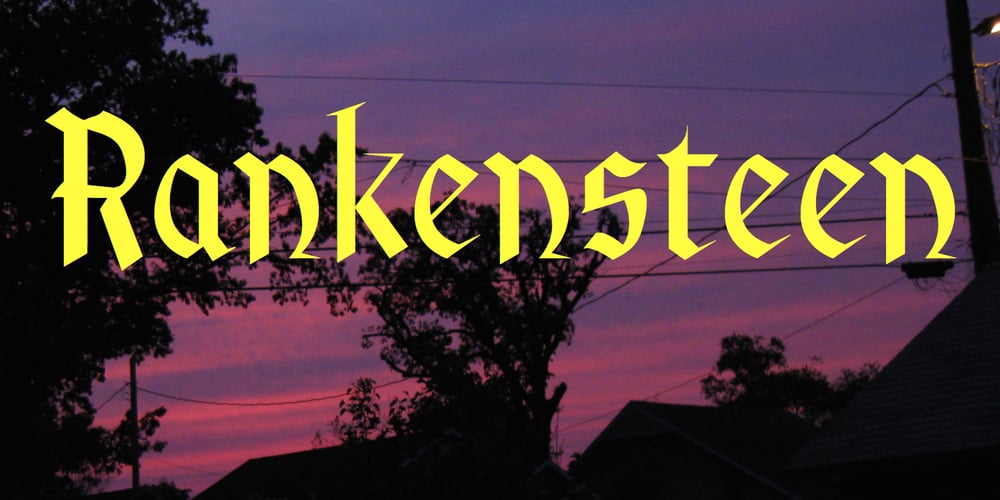
Rankensteen Font Family was designed by Robert Schenk and published by Ingrimayne Type. Rankensteen contains 1 styles and family package options. Many blackletter and calligraphic typefaces are elegant and can be used for items like invitations and liturgical or religious texts. Rankensteen is probably not one of them. It is crude and bizarre and with a somewhat menacing appearance. It seems more appropriate for a letter from a pirate than for a formal invitation.